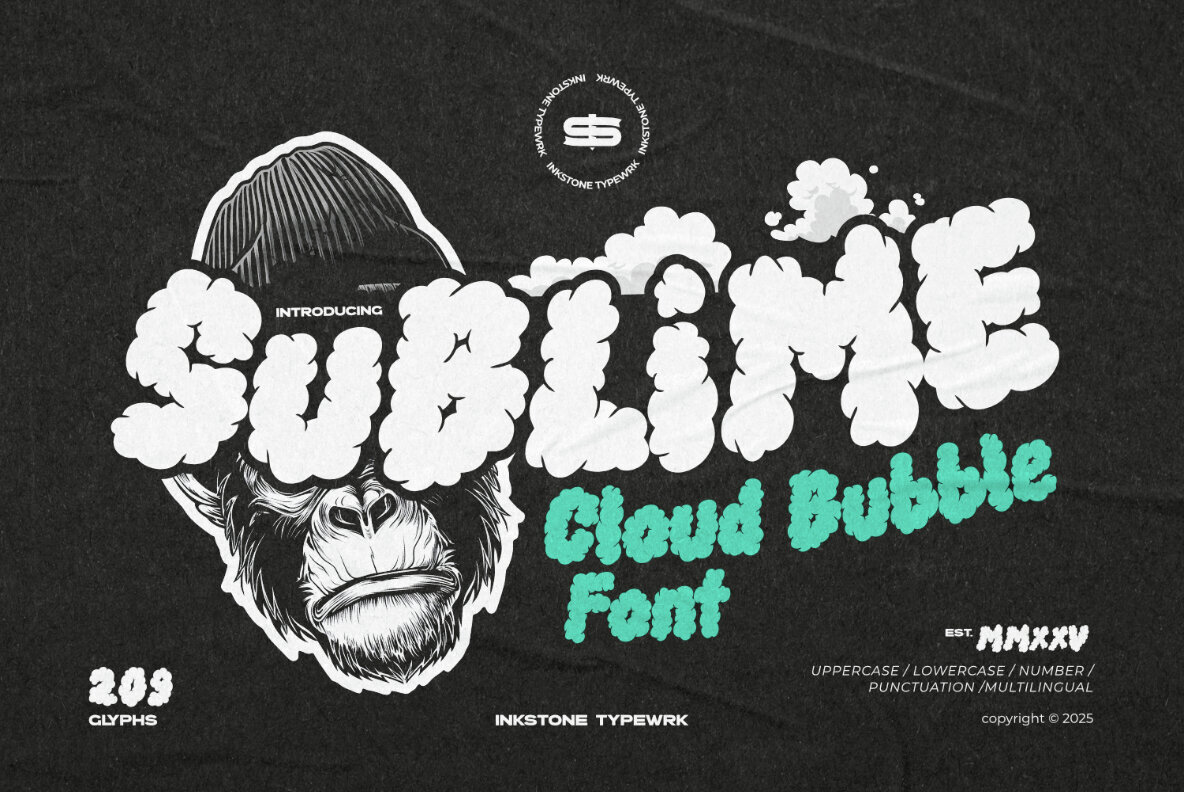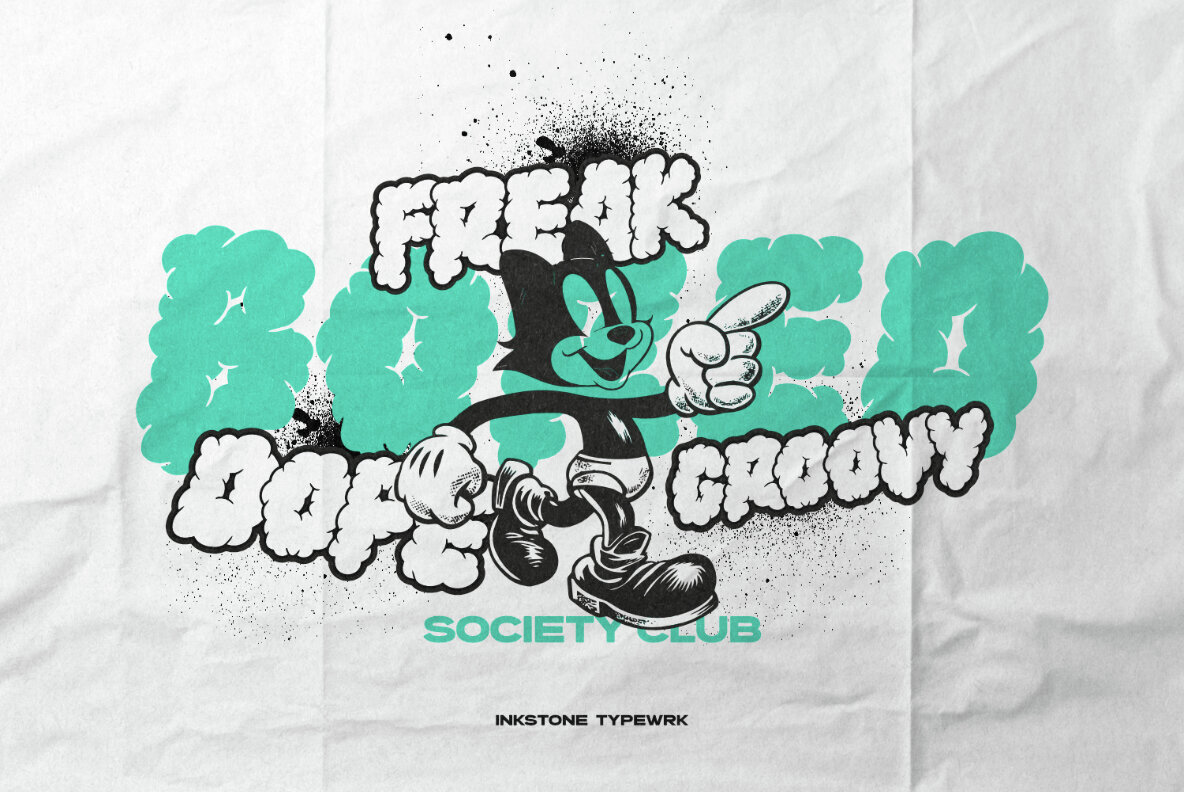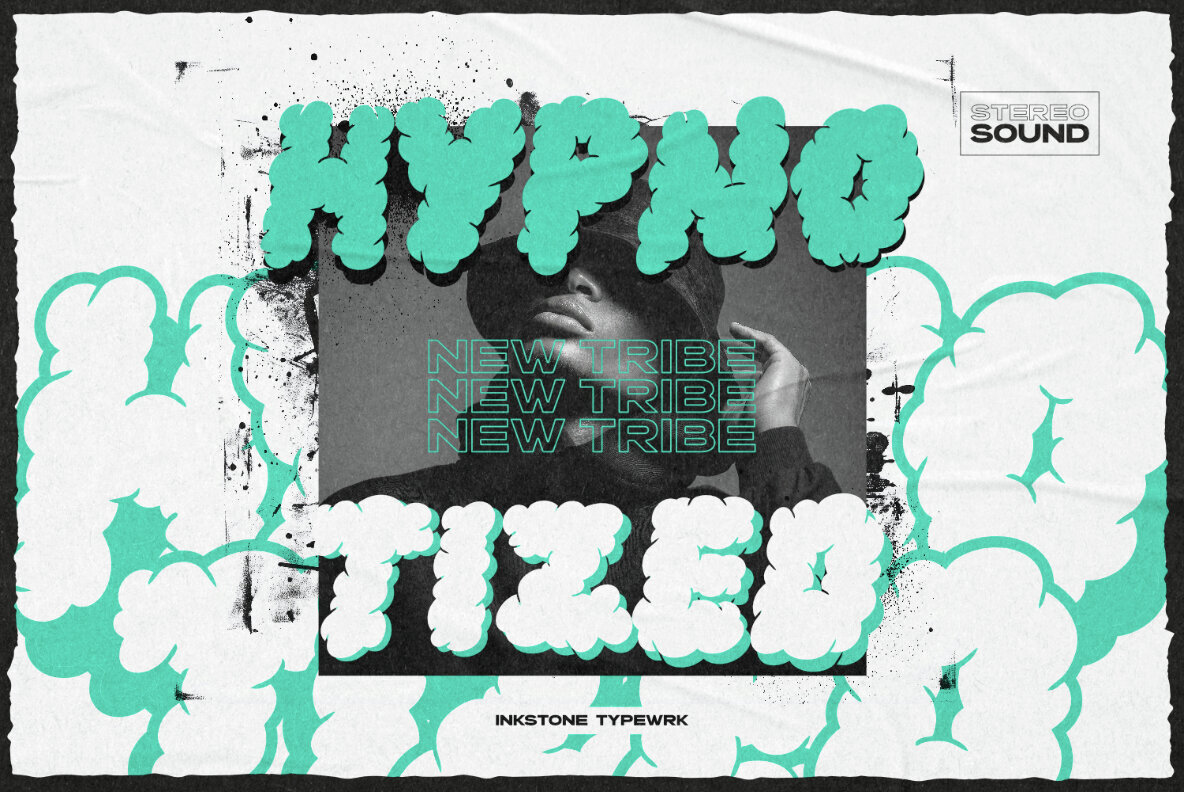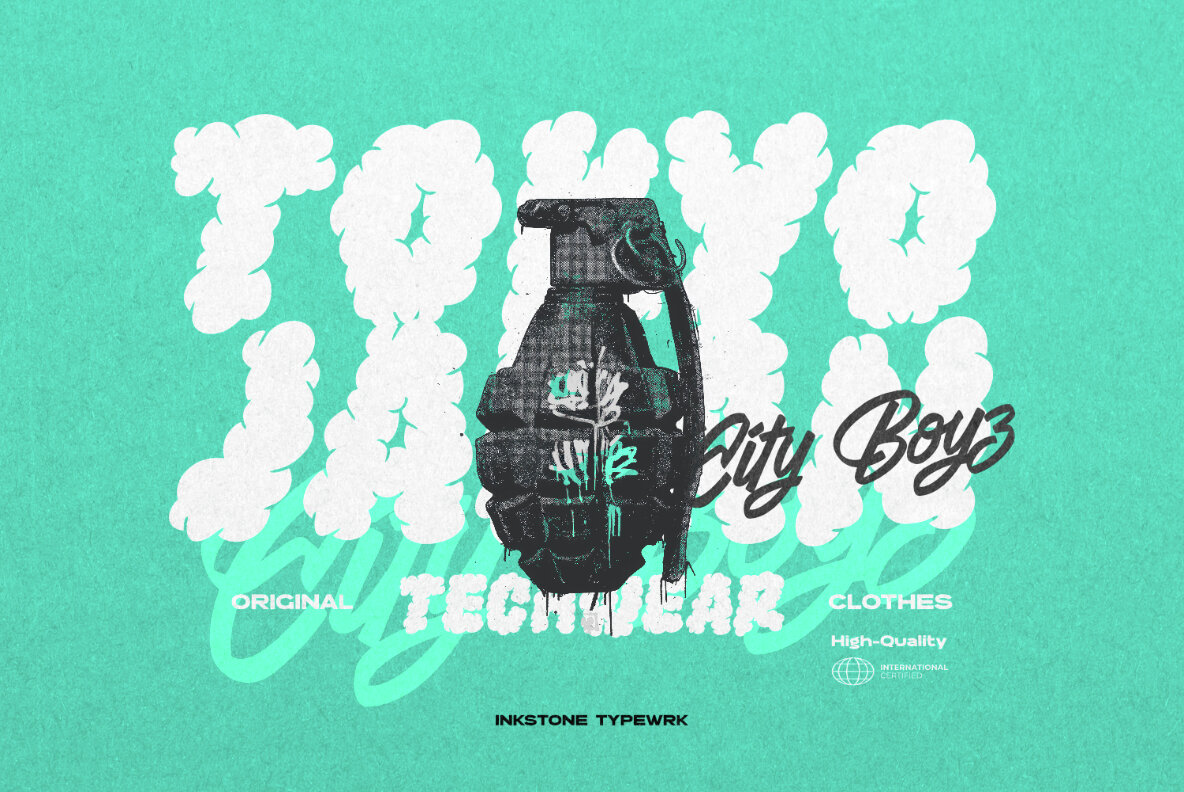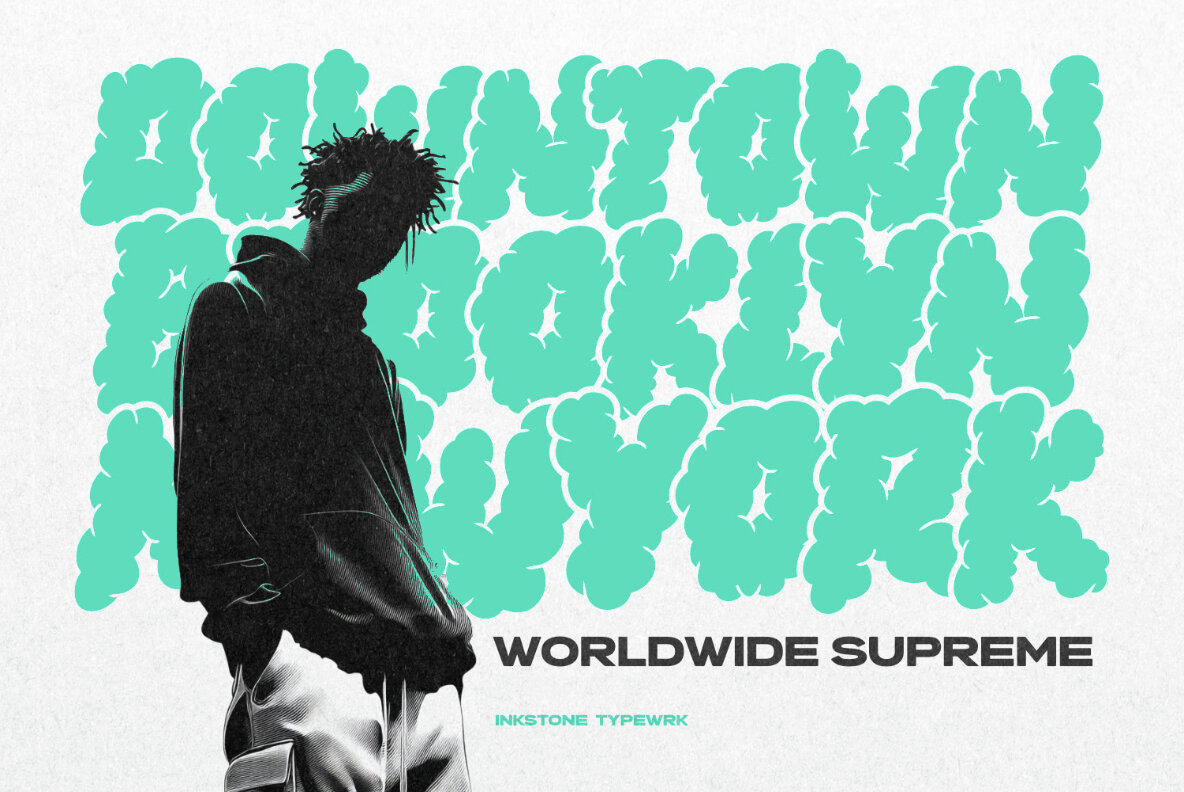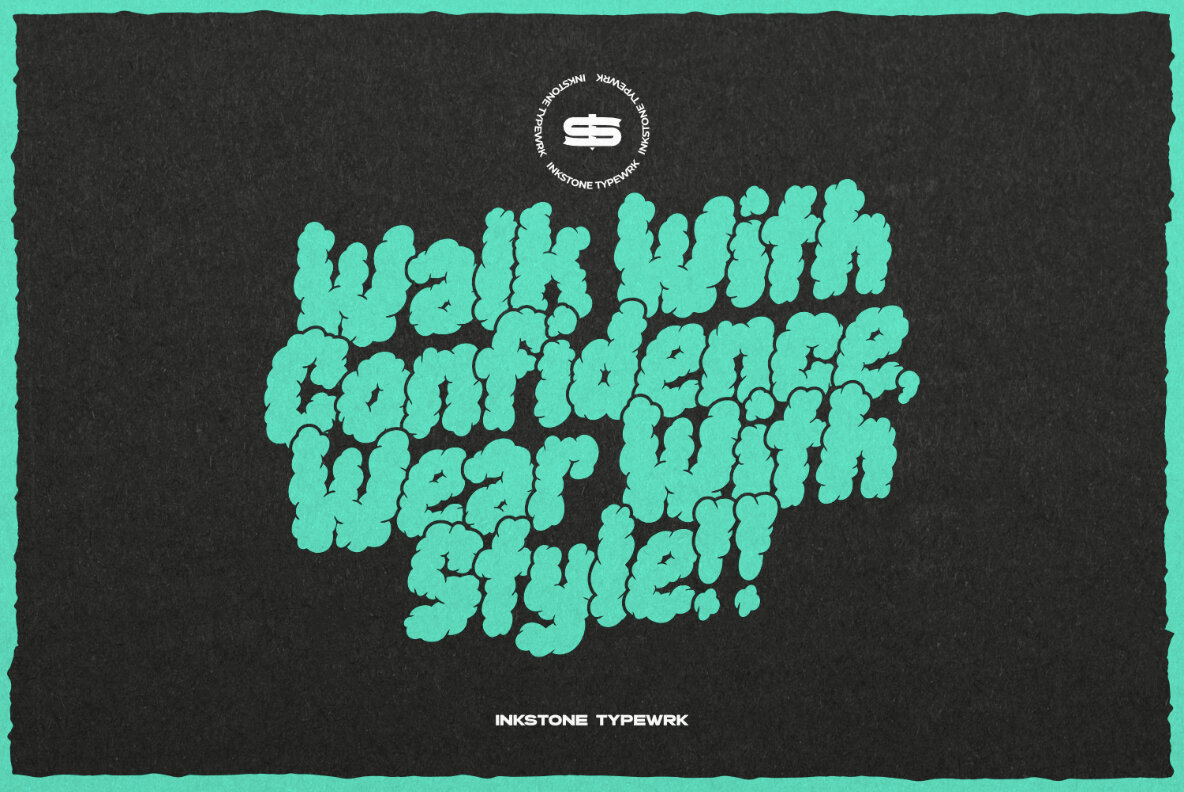
Sublime Font
Sublime
Sublime - Cloud Bubble Font Float into a world of funky, playful energy with Sublime, the chunky, illustrated bubble font that feels as light as a cloud but packs a bold punch. With its cheerful curves and bubbly charm, this typeface brings an effortless mix of fun, creativity, and retro coolness to any design. Perfect for vibrant posters, quirky branding, dreamy merch, and eye-catching headlines, Sublime delivers that soft yet statement-making look. Whether you're crafting a whimsical logo, a cute social media post, or a nostalgic throwback design, this font keeps it bouncy, bold, and irresistibly fun.